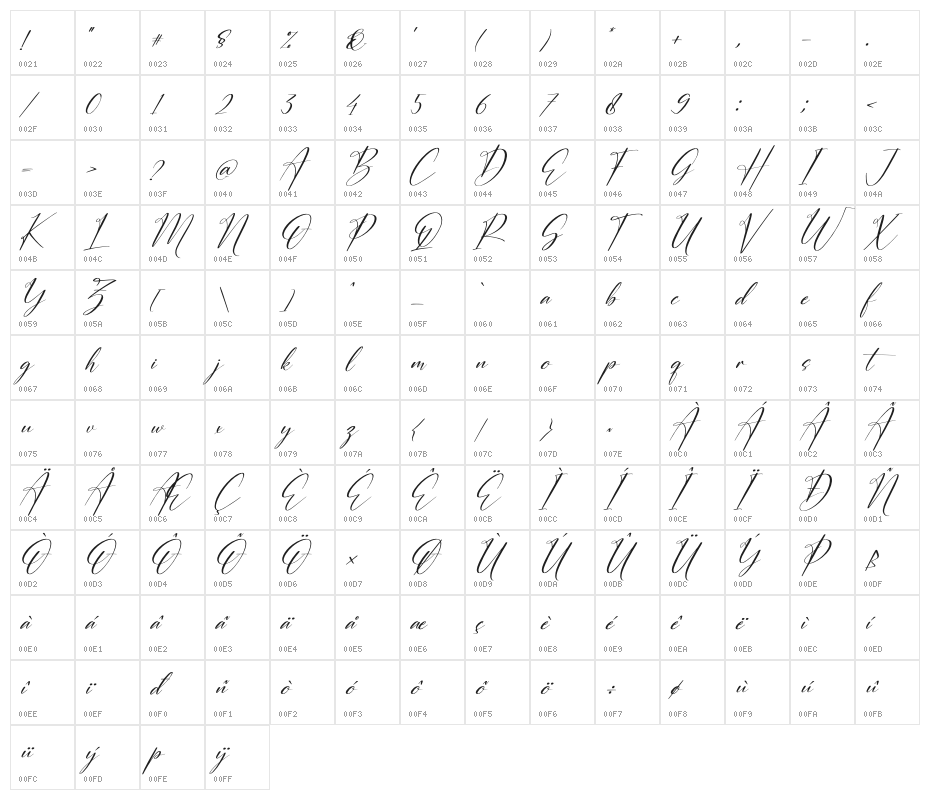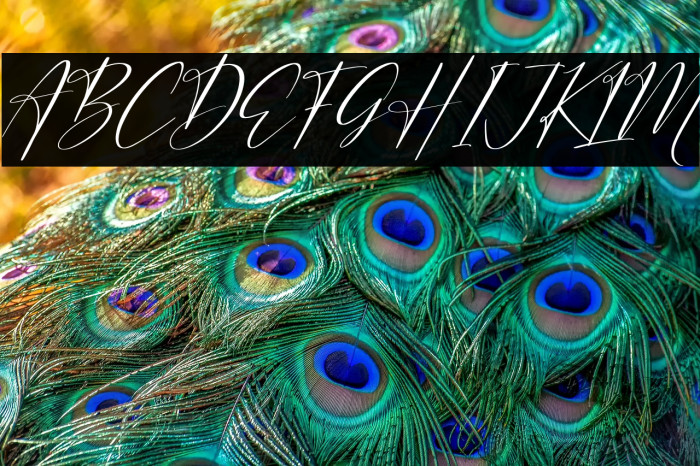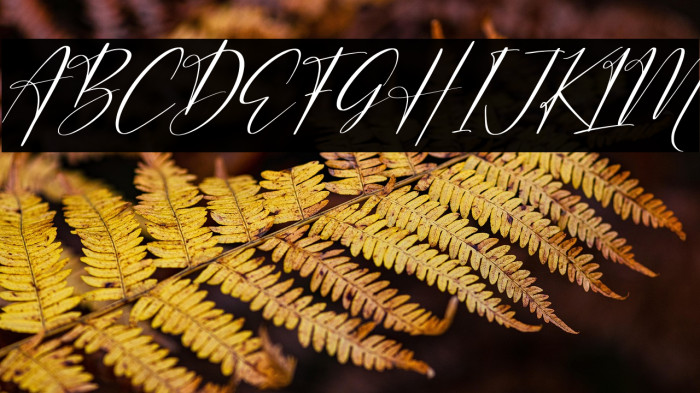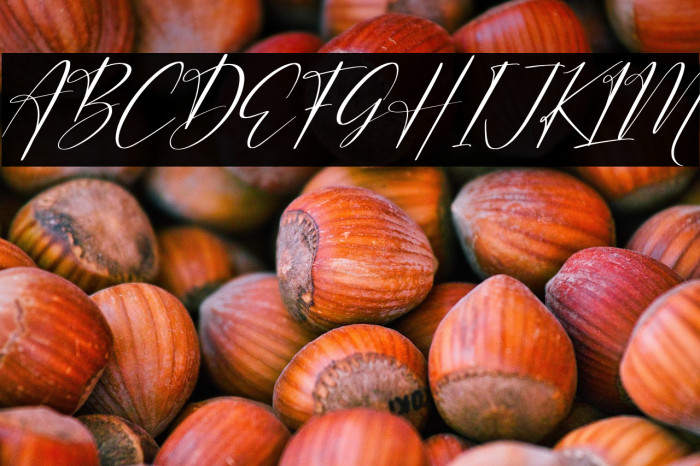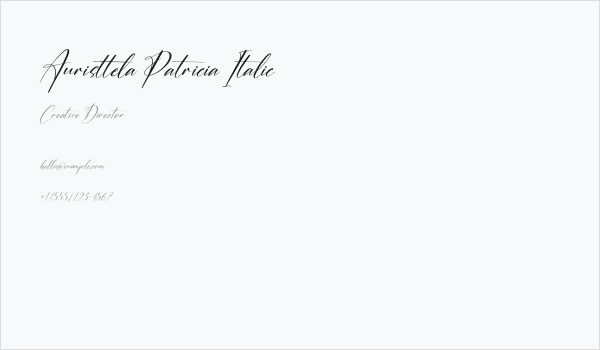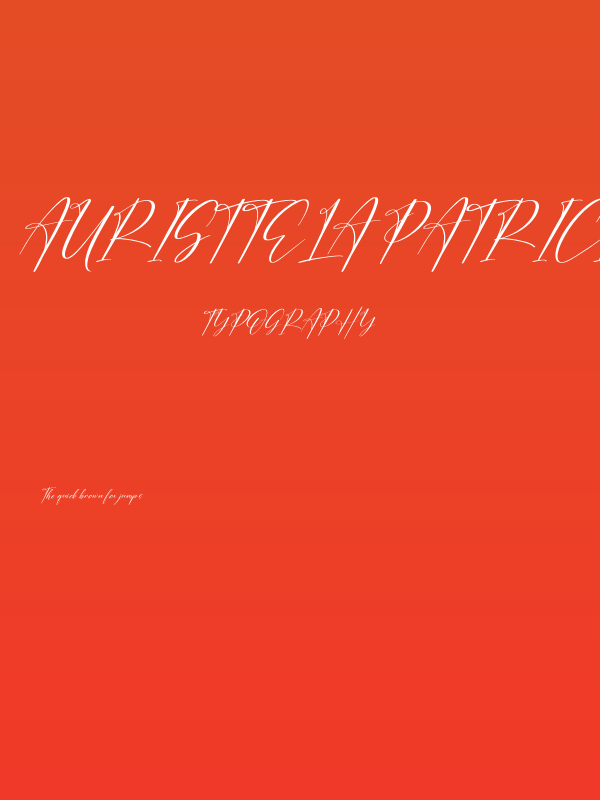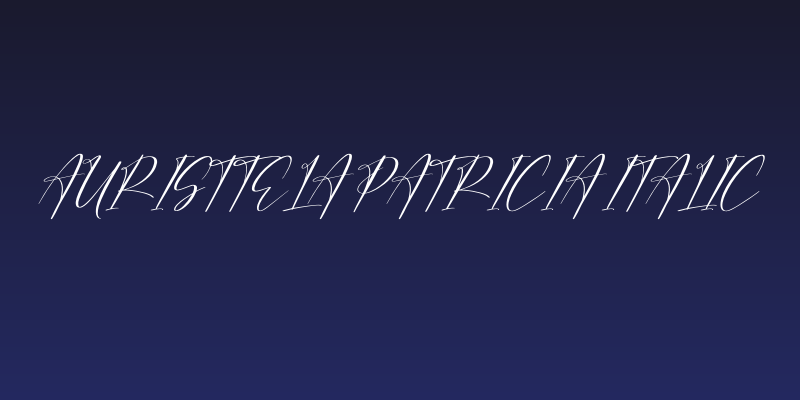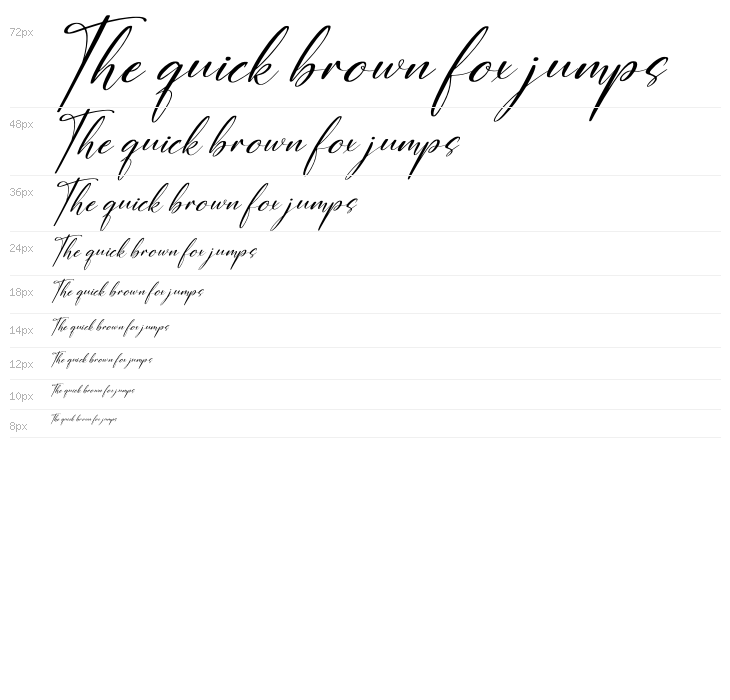
Auristtela Patricia Italic Font
Auristtela Patricia Italic Description
This elegant script font features a flowing, cursive style with a sophisticated flair. The letters are gracefully connected, creating a seamless and fluid appearance. The uppercase characters exhibit a distinct slant, adding a dynamic and lively touch. The lowercase letters maintain a consistent rhythm, enhancing readability while preserving the font's artistic nature. The numerals and special characters are designed with the same attention to detail, ensuring a cohesive look across all elements. This font's delicate strokes and refined curves make it ideal for projects that require a touch of elegance and sophistication.
Overall StyleElegant
Use CaseLogos, Invitations, Decorative text
Proposed ProjectsIdeal for wedding invitations, elegant branding, personal stationery, and upscale packaging.